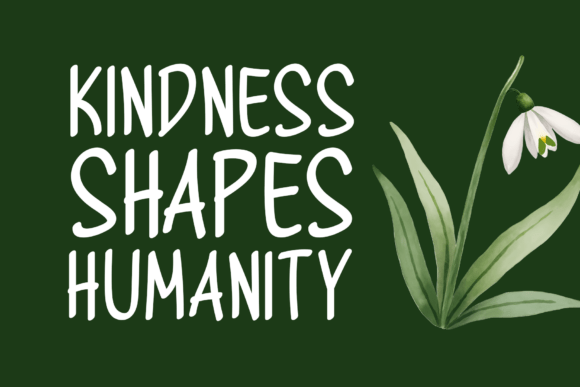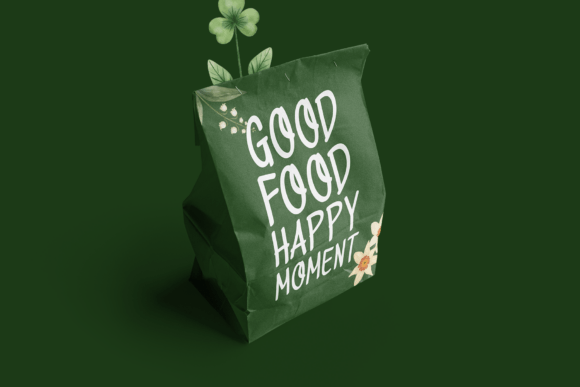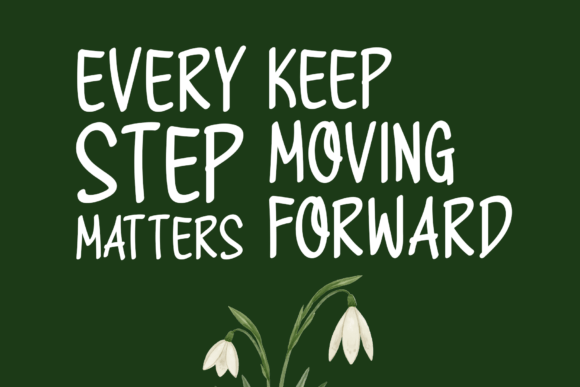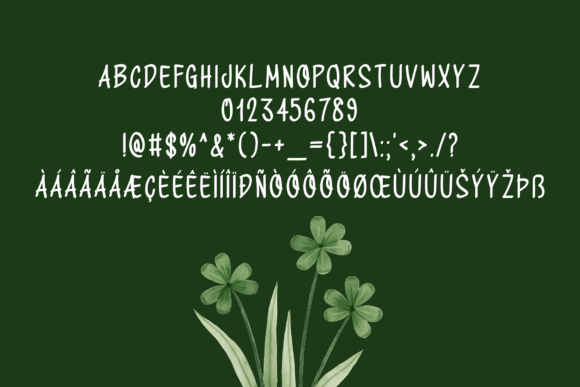
Introduction to Keep Rising Font
Have you ever been scrolling through social media, and a beautifully designed quote or graphic stops you in your tracks? You can’t help but pause, feel inspired, and maybe even share it with your friends. For designers, creating those ‘aha’ moments is what it’s all about. One powerful design tool that can help you achieve this is the Keep Rising Font.
As a versatile and expressive handwritten display font, Keep Rising Font is designed to add a personal touch to your creative projects. With its smooth, tall strokes and natural flow, it’s an excellent choice for inspiring quotes, branding materials, posters, and social media content. Whether you’re looking for a free download or a high-quality design resource, Keep Rising Font is a valuable addition to any designer’s toolkit.
Key Features of Keep Rising Font
- Unique, modern design with a transparent background, allowing for versatility in use.
- Includes 5 styles, each with a range of weights and font sizes for optimal customization.
- Perfect for designers, artists, and creatives looking for a modern, high-quality font for their next project.
Honest Review: Keep Rising Font
I recently had the chance to dive into the world of typography with the Keep Rising Font, and I must say it’s been an exciting experience. This font has been designed to make a statement and help elevate your creative project to the next level.
- ✨ The font has a high-quality feel to it, with clean lines and smooth curves that make it perfect for a variety of design applications.
- ✨ The transparent background option allows for maximum flexibility in design compositions.
- ⚠️ The font may not be ideal for smaller text sizes, as the details can get lost.
- ⚠️ Some users may find the font a bit too bold or overpowering for certain design projects.
Overall, I think the Keep Rising Font is a great addition to any designer’s toolkit. It’s versatile, easy to use, and perfect for making a statement in your design work. While it may have some limitations, the benefits far outweigh the drawbacks.
Use the Keep Rising Font to add a professional touch to your presentations and documents. Its clean design and transparent background make it perfect for overlaying over images or using as a standalone element.
Tips for Getting the Most Out of Keep Rising Font
Experiment with different font sizes and colors to create visually appealing designs. Use the Keep Rising Font in conjunction with other design resources to add depth and interest to your creative projects.
The Keep Rising Font is perfect for a variety of creative projects, including social media graphics, blog posts, and presentations. Its high-quality design and transparent background make it a versatile design resource for any project.
Does the Keep Rising Font have a transparent background?
Yes, the Keep Rising Font features a transparent background, making it ideal for use in design projects where a clear and unobtrusive font is desired. This is particularly useful for web design and other applications where a high-quality font is essential.